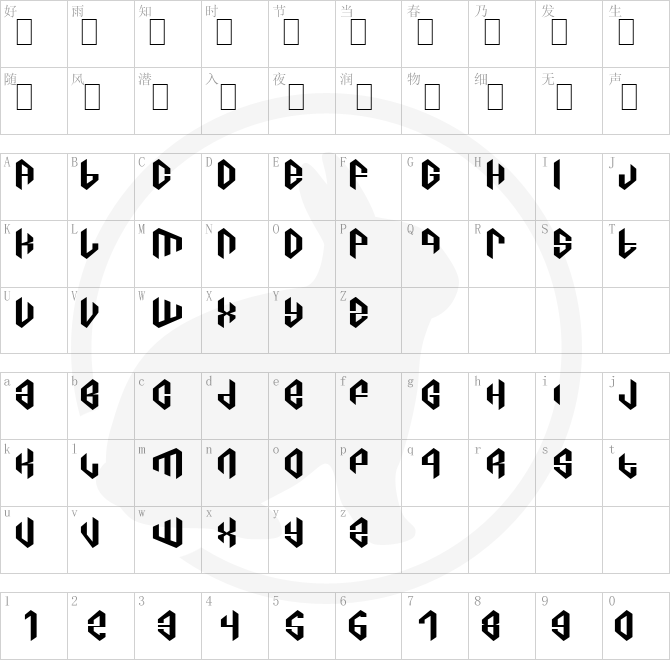
- Font Name:c8a tajra
c8a-tajra.ttf is a very beautiful artistic font, c8a-tajra.ttf is widely used in the design and printing of various books and pictures,c8a-tajra.ttf has a strong visual impact,c8a-tajra.ttf is a commonly used font in newspapers, magazines and books, and is used in posters, e-commerce Poster design, store design, logo design, font design and other fields.c8a-tajra.